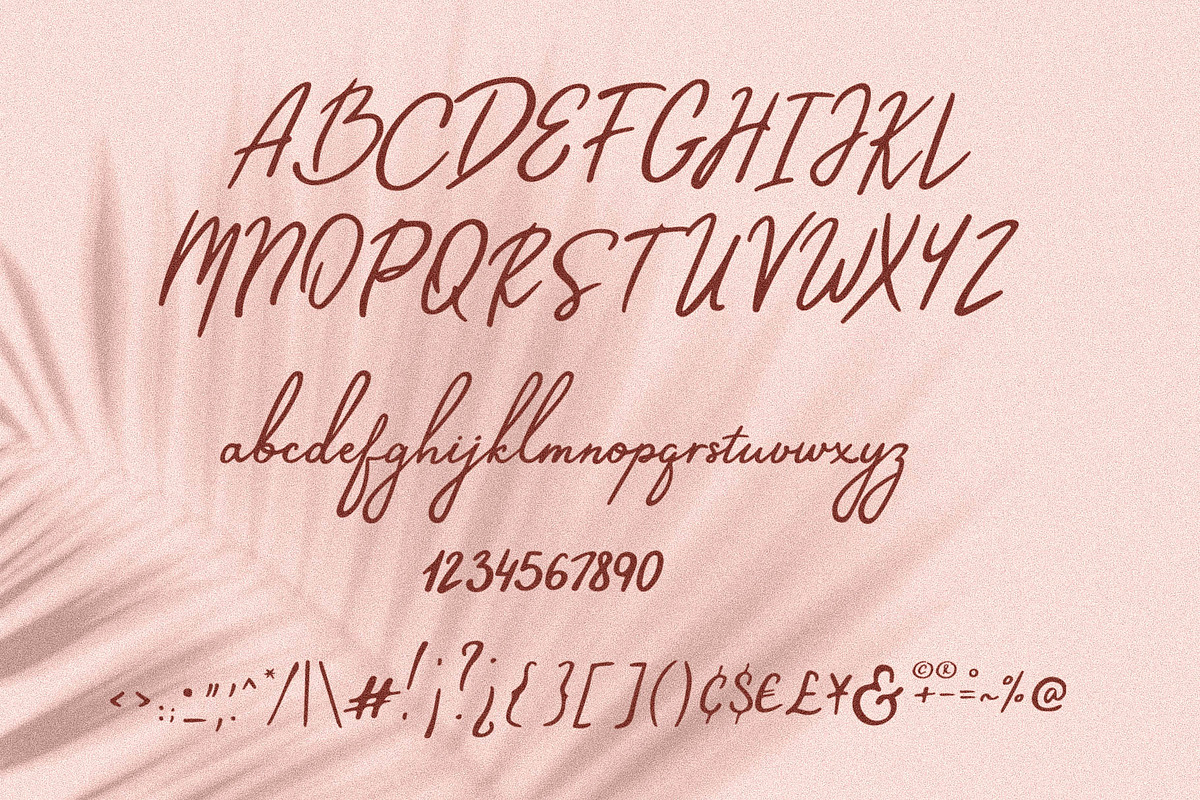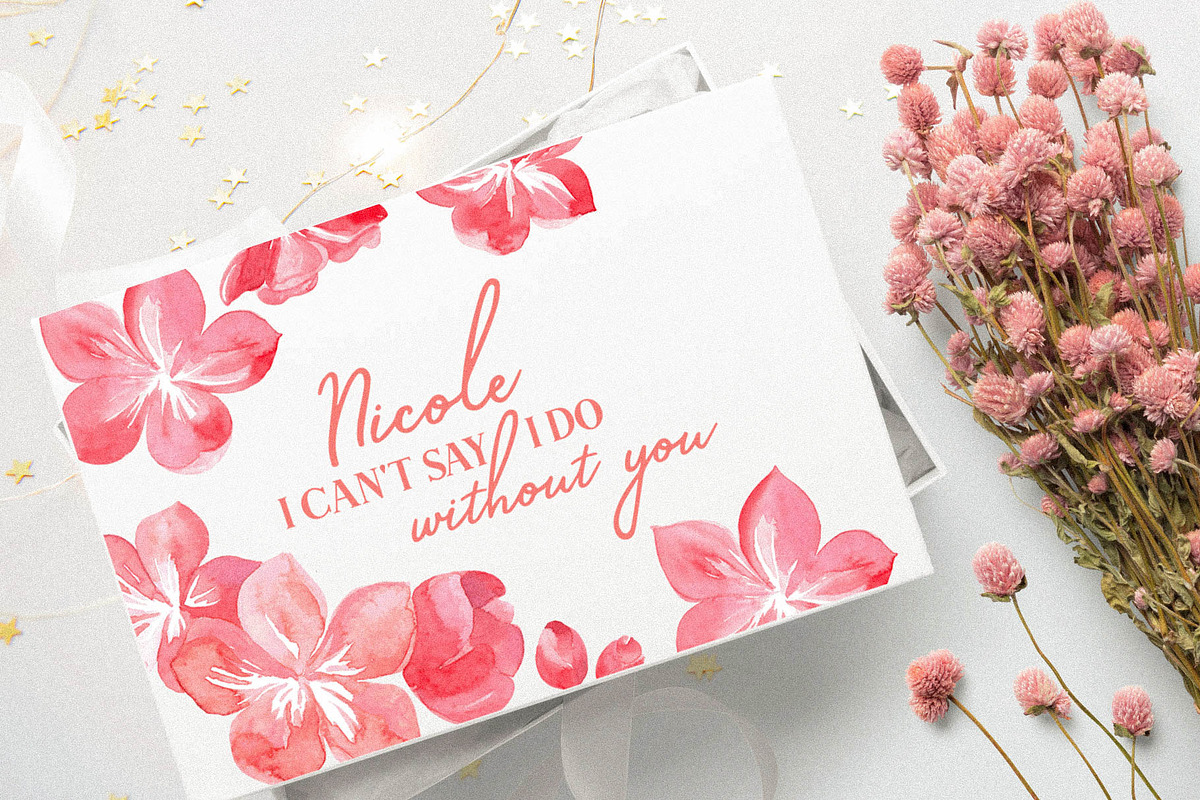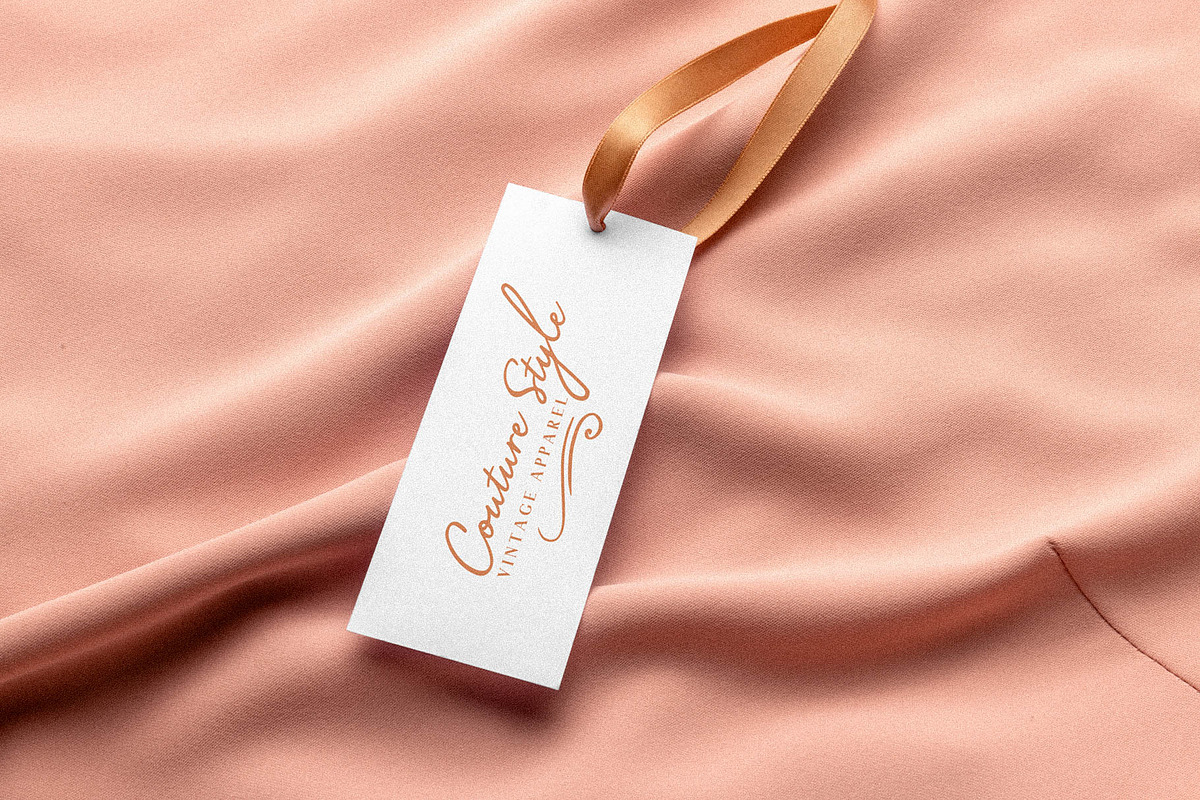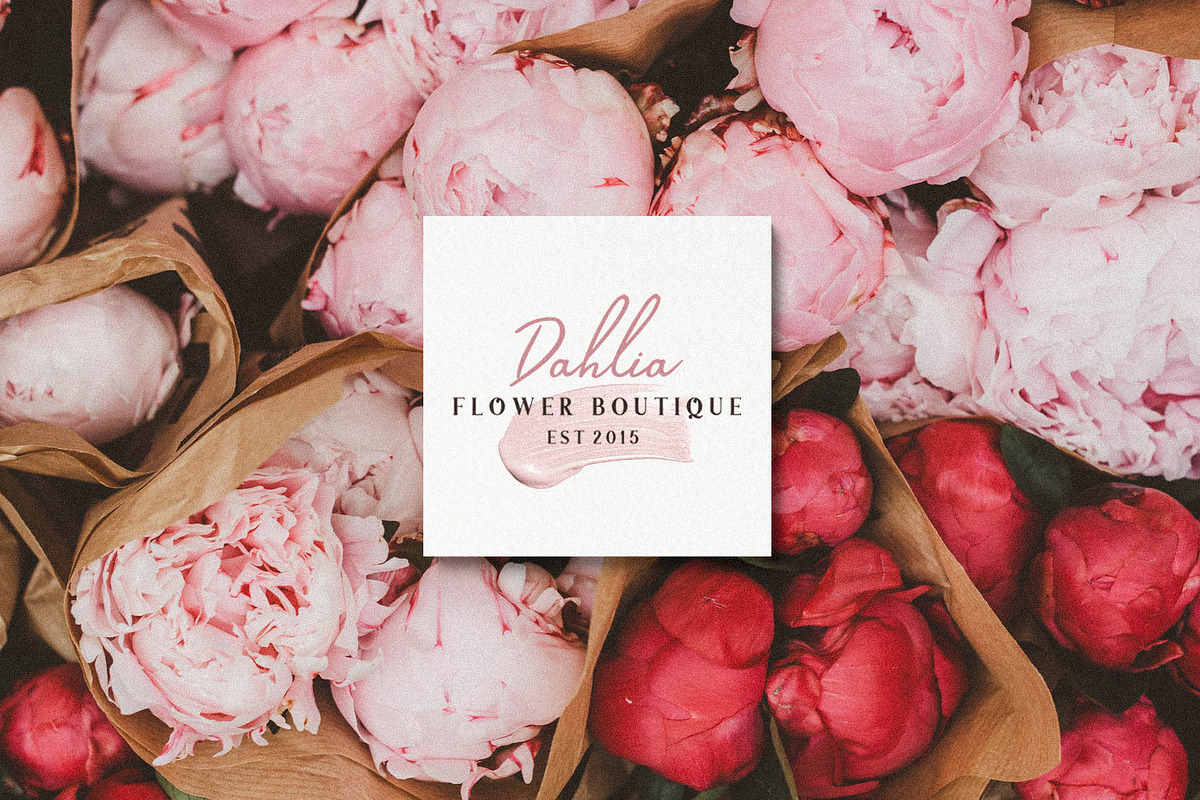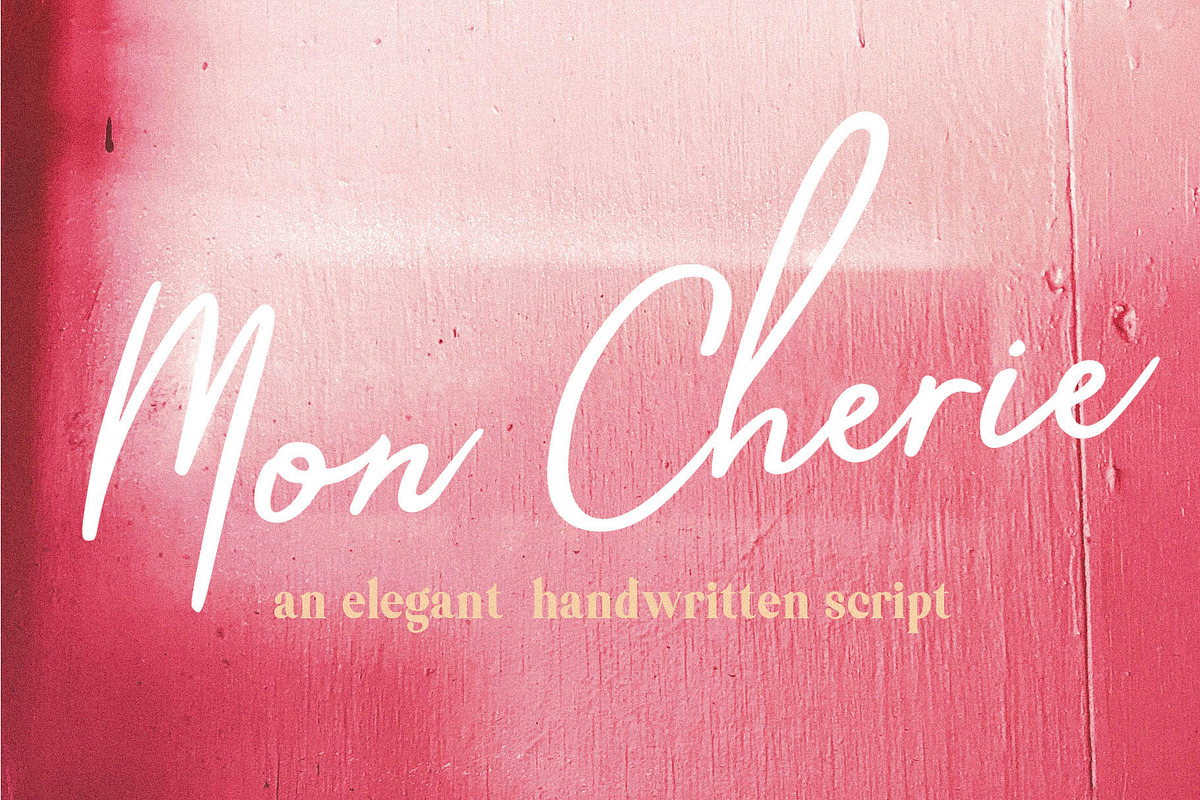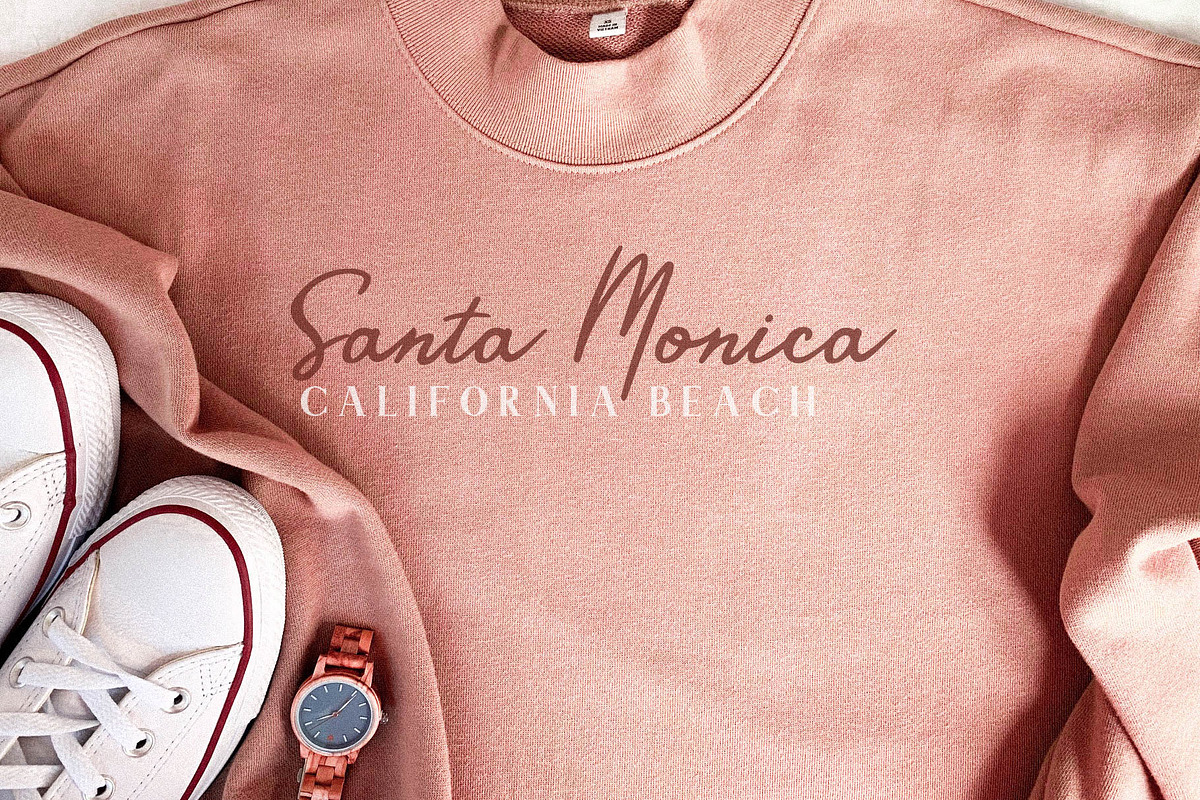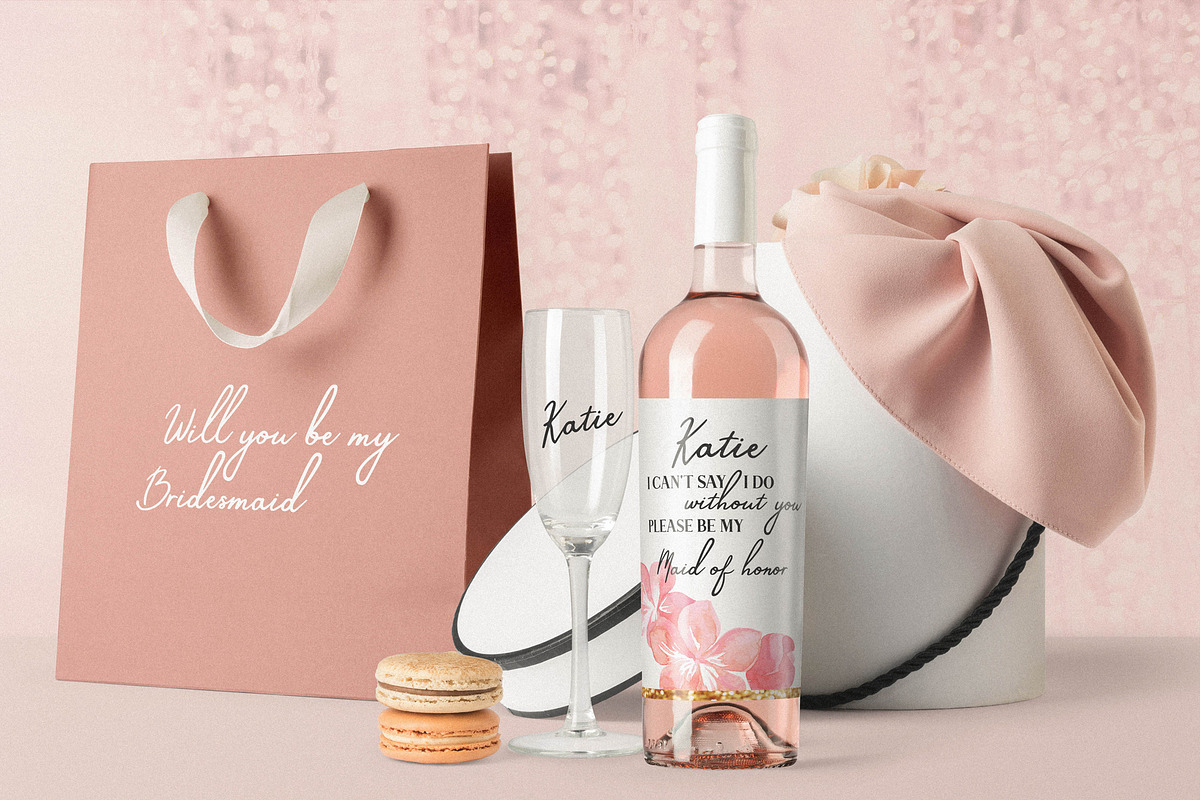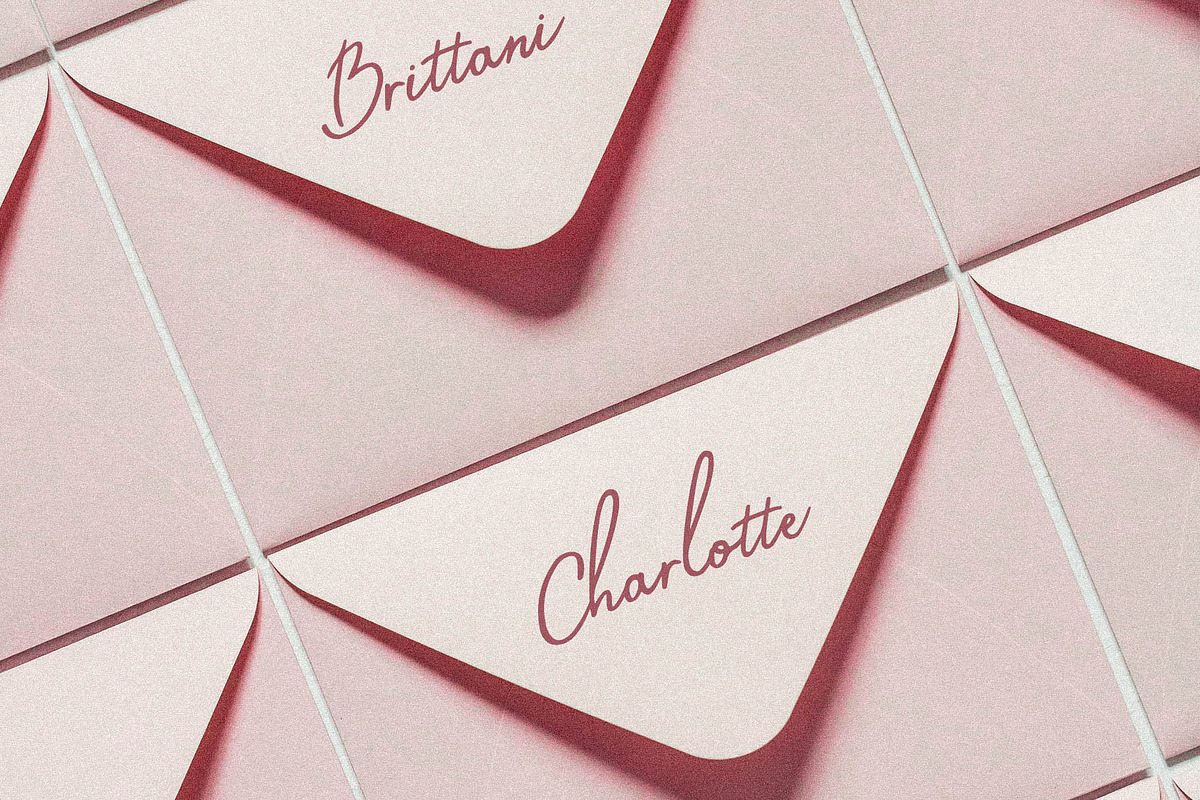
Mon Cherie Script Font
Mon Cherie an Elegant Handwritten Font
Upper and lowercase letters
Why Mon Cherie Script Font is worth a look
Mon Cherie Script Font by BarcelonaShop fits naturally into Branding, posters, packaging, typography.